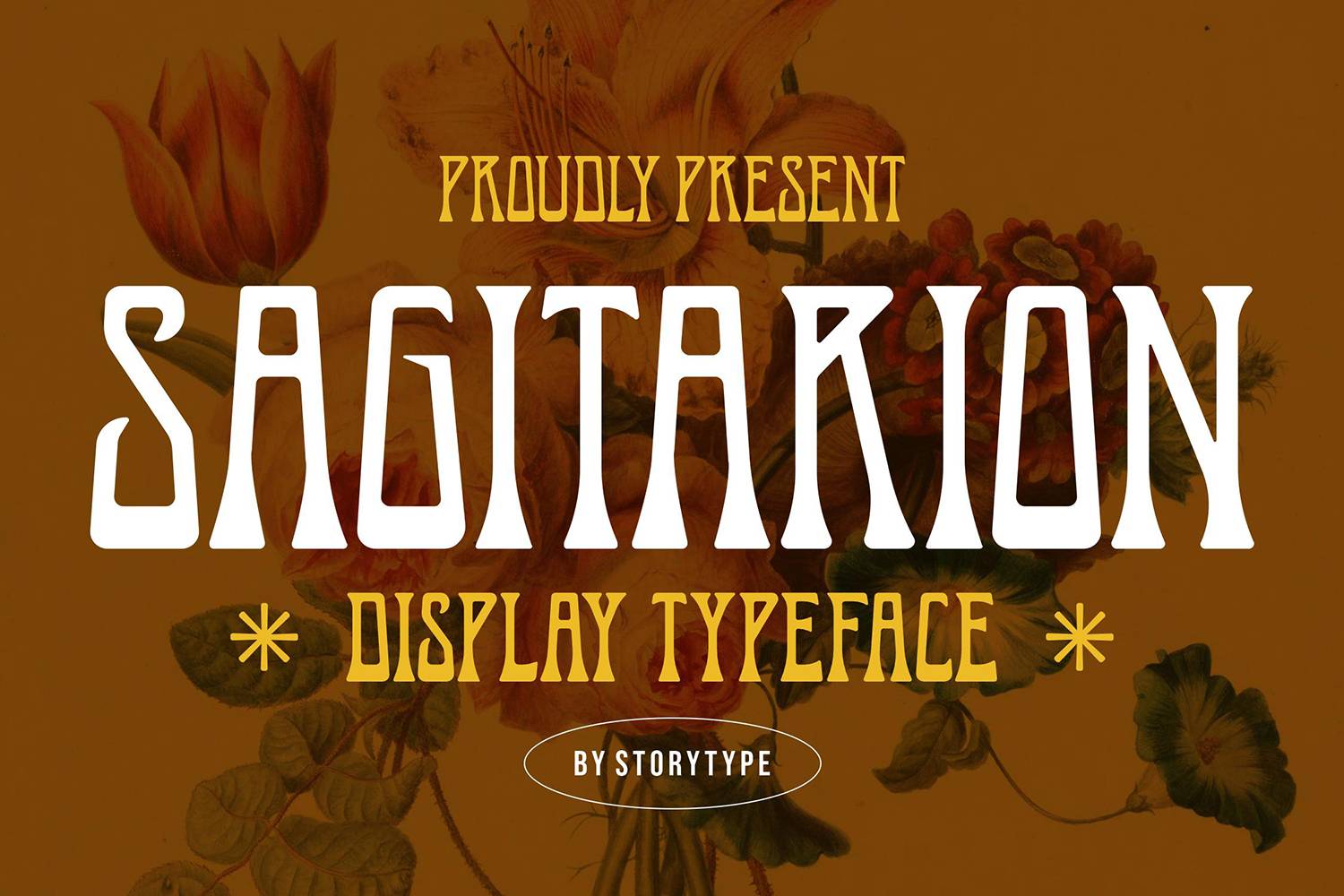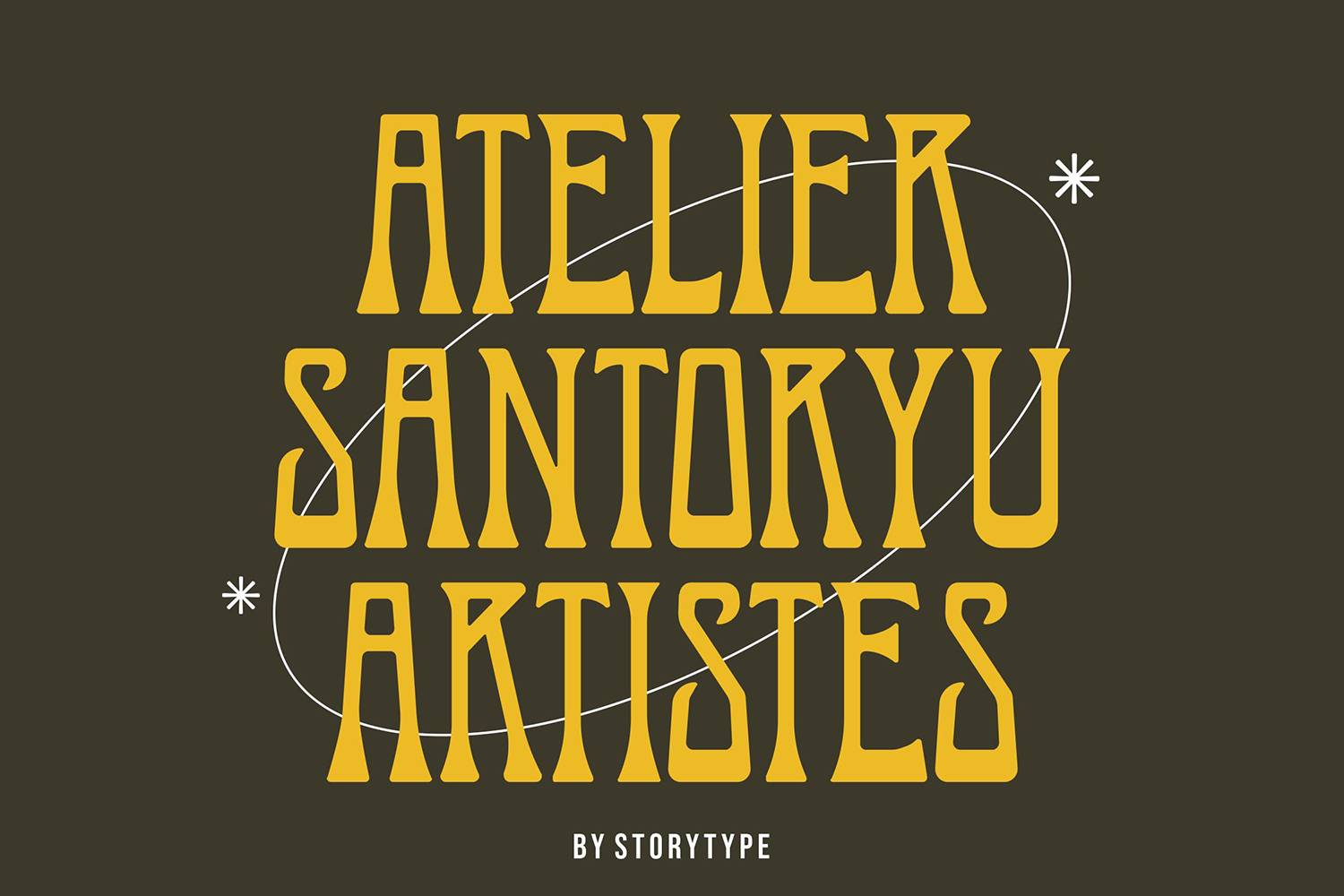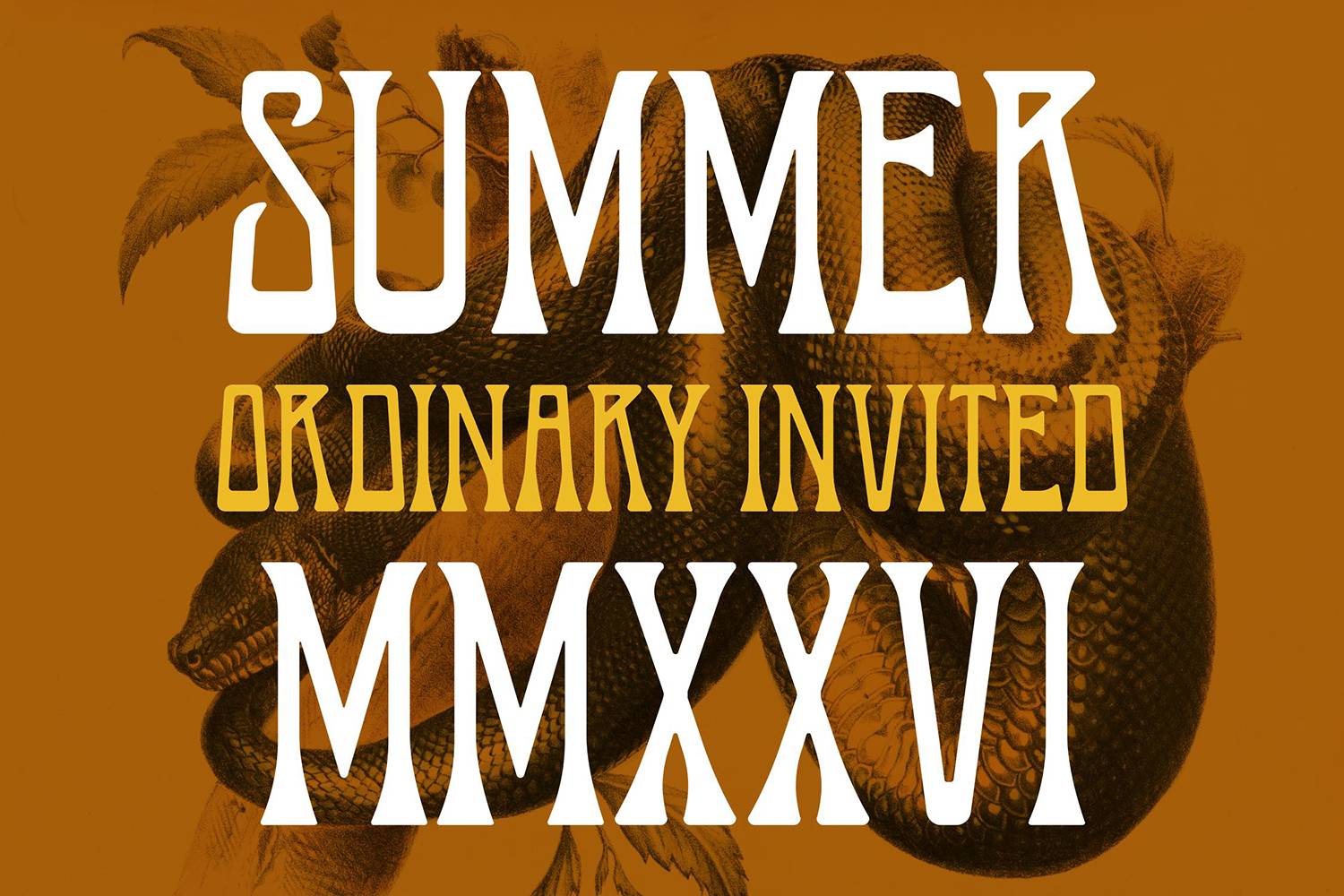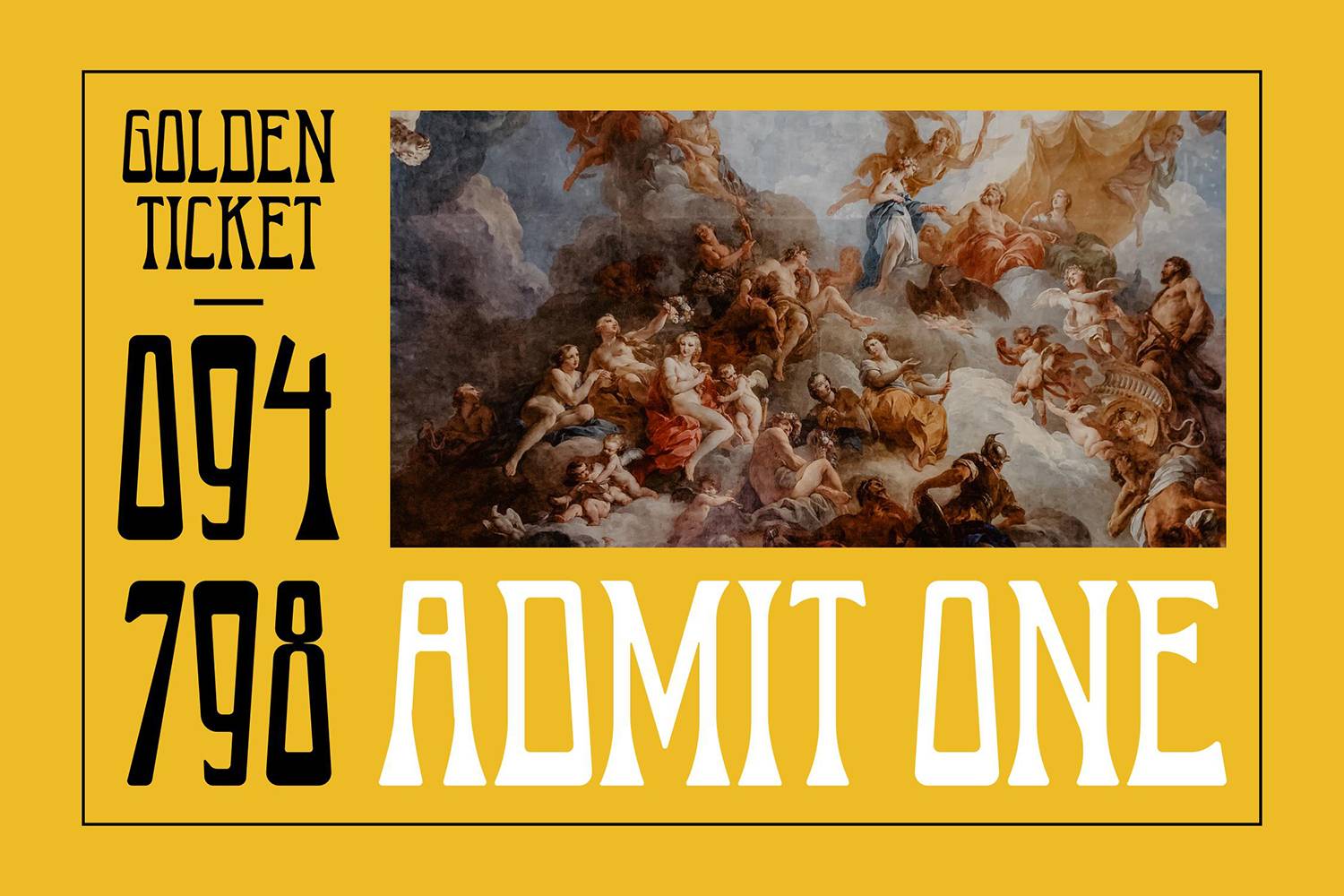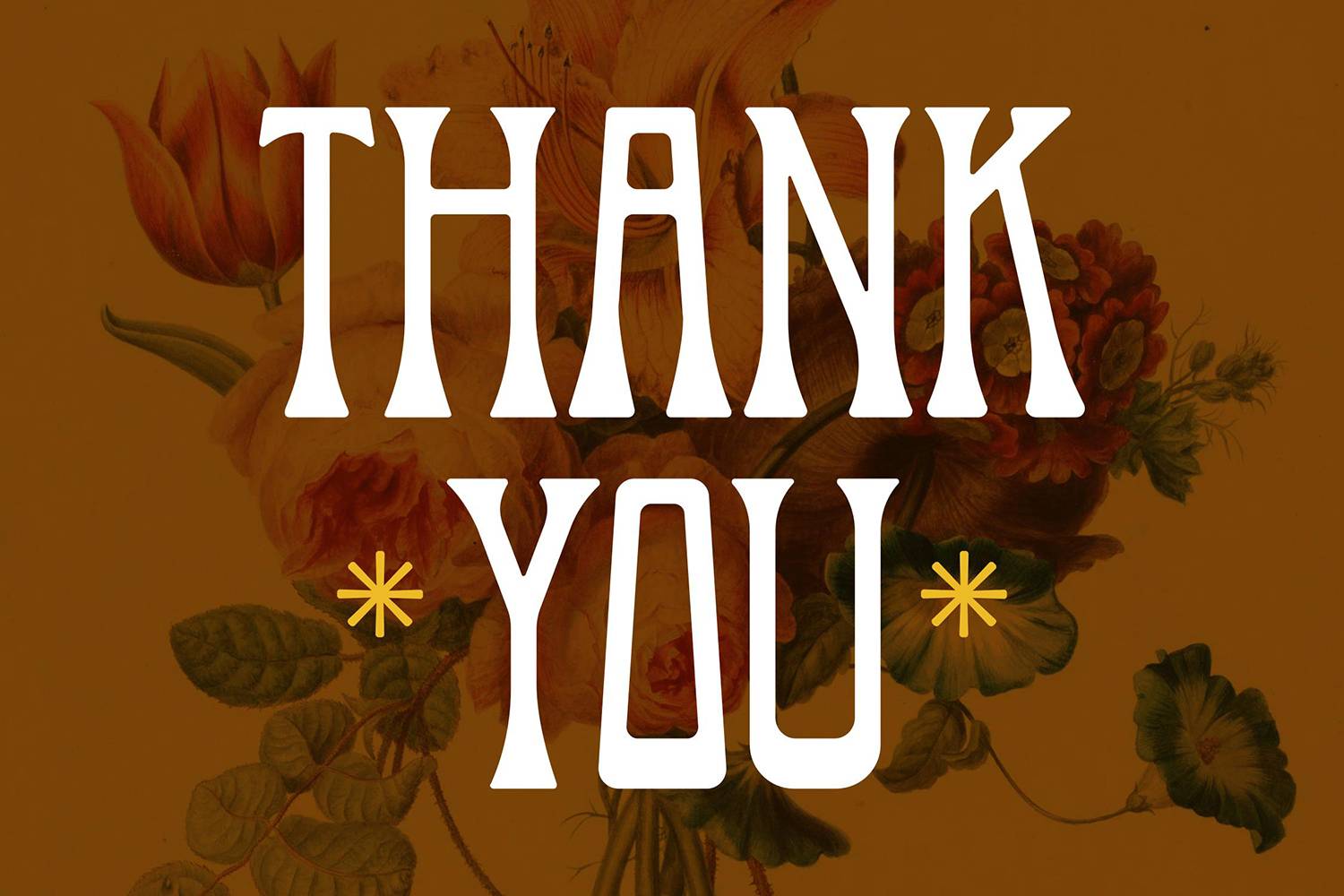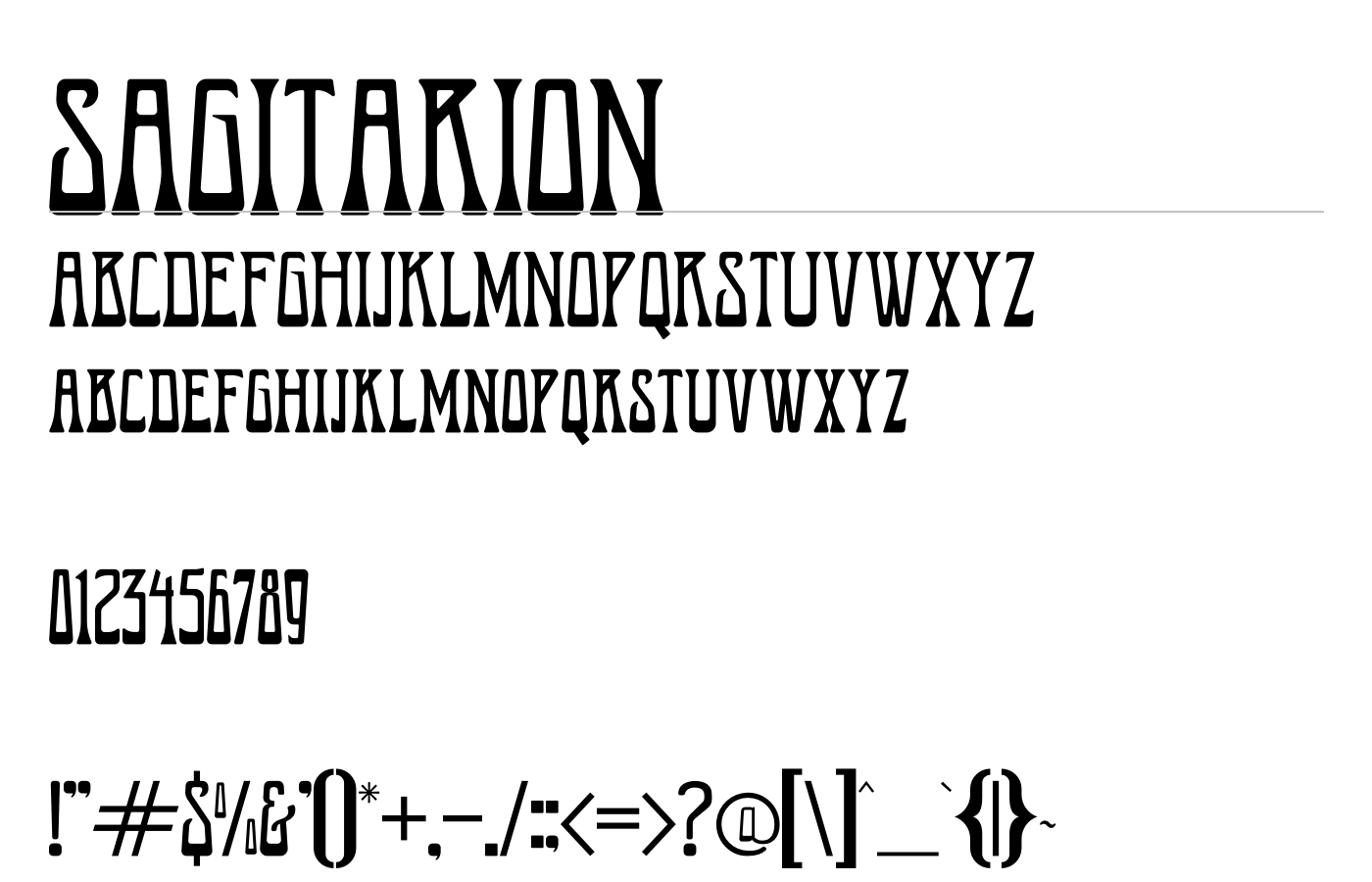
Sagitarion is a distinctive condensed display font with a tall x-height and bold, blocky serifs that give it a strong, almost architectural feel. Its high contrast between thick vertical stems and thin connecting strokes combined with unique character shapes lends it a modern yet vintage vibe, making it ideal for striking headlines, logos, and branding that demand a bold, confident personality. This font works best in creative projects where a dramatic and memorable statement is needed.
Sagitarion Font